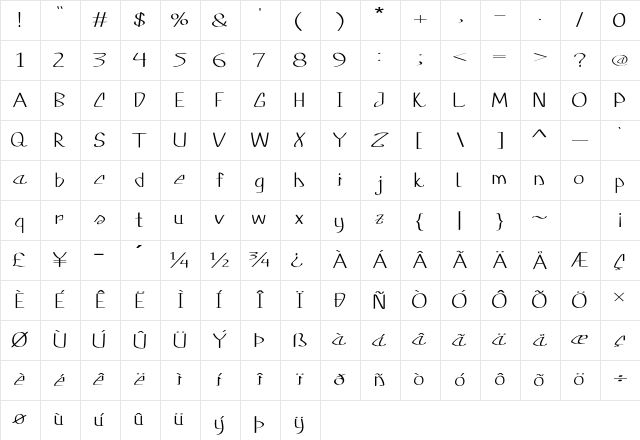
Rumia Extra-expanded Regular
Style: Extra-expanded Regular
Rumia Family
Design Context for Rumia
Rumia is a composed and adaptable typeface that performs quietly and consistently across a wide range of design contexts.